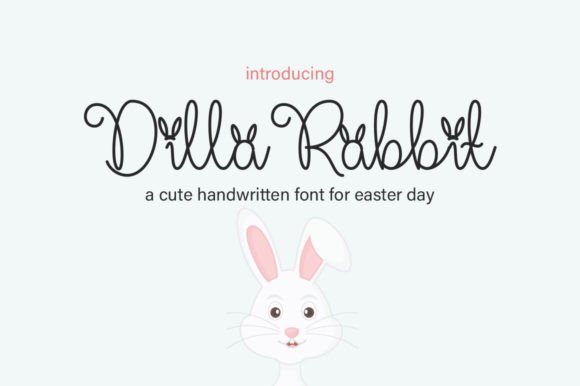
Dilla Rabbit Font: The Ultimate Guide to This Romantic and Sweet Calligraphy Typeface
Are you looking for a font that can add a touch of luxury and romance to your design projects? Look no further than the Dilla Rabbit Font. This beautiful calligraphy typeface is perfect for creating stunning designs that exude elegance and sophistication. In this article, we’ll take a closer look at the Dilla Rabbit Font, its features, and how you can use it to elevate your design projects.
What is Dilla Rabbit Font?
Dilla Rabbit Font is a romantic and sweet calligraphy typeface that is designed to make your design projects stand out. Its characters dance along the baseline, creating a beautiful and elegant look that is perfect for a variety of design applications. Whether you’re creating a logo, branding materials, or social media graphics, the Dilla Rabbit Font is sure to add a touch of luxury and sophistication.
Key Features of Dilla Rabbit Font
The Dilla Rabbit Font comes with a range of features that make it a versatile and easy-to-use font. Some of its key features include:
- PUA Encoding: The Dilla Rabbit Font is PUA encoded, which means that you can access all of its amazing glyphs and ligatures with ease. This makes it easy to create beautiful and complex designs without having to worry about complicated font management.
- Romantic and Sweet: The Dilla Rabbit Font has a romantic and sweet feel that is perfect for creating designs that are elegant and sophisticated.
- Calligraphy Typeface: The Dilla Rabbit Font is a calligraphy typeface that is designed to mimic the look of hand-written calligraphy. Its characters are fluid and elegant, making it perfect for creating designs that are luxurious and high-end.
- Dancing Characters: The characters in the Dilla Rabbit Font dance along the baseline, creating a beautiful and dynamic look that is sure to capture attention.
How to Use Dilla Rabbit Font
The Dilla Rabbit Font is easy to use and can be applied to a variety of design projects. Here are some tips for using the Dilla Rabbit Font:
- Logos and Branding: The Dilla Rabbit Font is perfect for creating logos and branding materials that are elegant and sophisticated.
- Social Media Graphics: Use the Dilla Rabbit Font to create stunning social media graphics that are sure to capture attention.
- Wedding and Event Design: The Dilla Rabbit Font is perfect for creating wedding and event designs that are romantic and elegant.
- Packaging Design: Use the Dilla Rabbit Font to create beautiful and luxurious packaging designs that stand out on store shelves.
Benefits of Using Dilla Rabbit Font
The Dilla Rabbit Font offers a range of benefits that make it a great choice for designers. Some of its benefits include:
- Elegant and Sophisticated: The Dilla Rabbit Font is elegant and sophisticated, making it perfect for creating designs that are luxurious and high-end.
- Easy to Use: The Dilla Rabbit Font is easy to use and comes with PUA encoding, making it easy to access all of its glyphs and ligatures.
- Versatile: The Dilla Rabbit Font is versatile and can be used for a variety of design projects, from logos and branding to social media graphics and packaging design.
- Unique: The Dilla Rabbit Font is a unique and distinctive font that is sure to make your designs stand out.
Tips for Getting the Most Out of Dilla Rabbit Font
Here are some tips for getting the most out of the Dilla Rabbit Font:
- Experiment with Different Sizes: Experiment with different sizes to find the perfect size for your design.
- Pair with Other Fonts: Pair the Dilla Rabbit Font with other fonts to create a unique and interesting look.
- Use Ligatures: Use the ligatures and glyphs in the Dilla Rabbit Font to add a touch of elegance and sophistication to your designs.
- Play with Color: Play with different colors to find the perfect color for your design.
The Dilla Rabbit Font is a beautiful and elegant calligraphy typeface that is perfect for creating designs that are luxurious and high-end. Its romantic and sweet feel makes it perfect for a variety of design applications, from logos and branding to social media graphics and packaging design. With its PUA encoding and easy-to-use glyphs and ligatures, the Dilla Rabbit Font is a great choice for designers who want to create stunning designs with ease.
- What is the Dilla Rabbit Font? The Dilla Rabbit Font is a romantic and sweet calligraphy typeface that is designed to make your design projects stand out.
- What design projects is the Dilla Rabbit Font suitable for? The Dilla Rabbit Font is suitable for a variety of design projects, including logos and branding, social media graphics, wedding and event design, and packaging design.